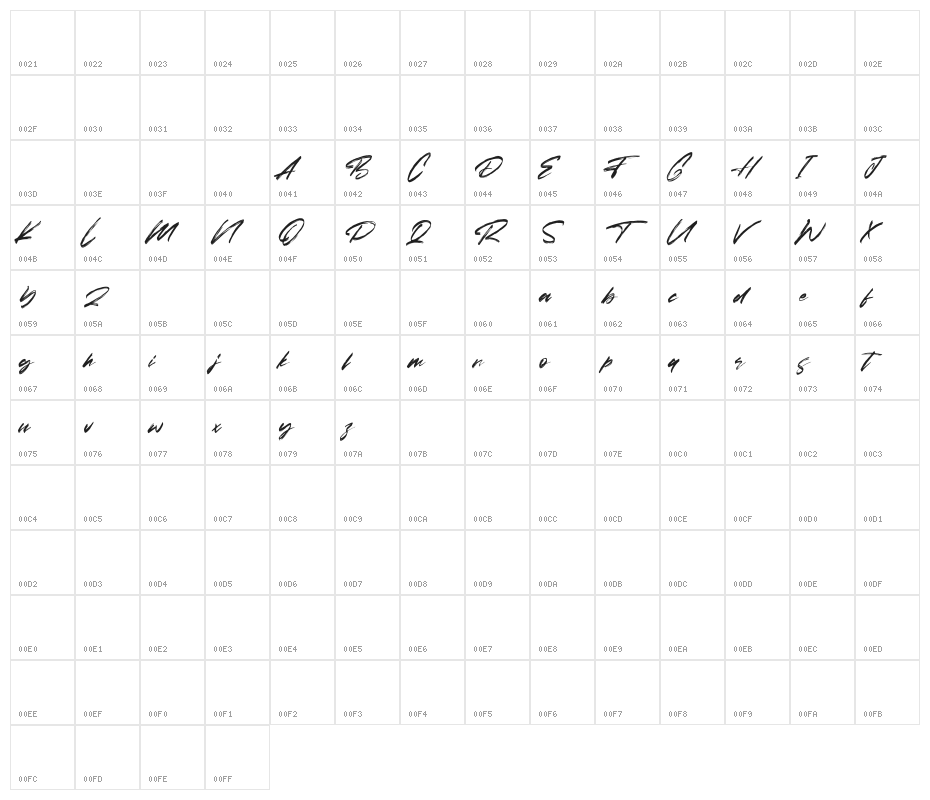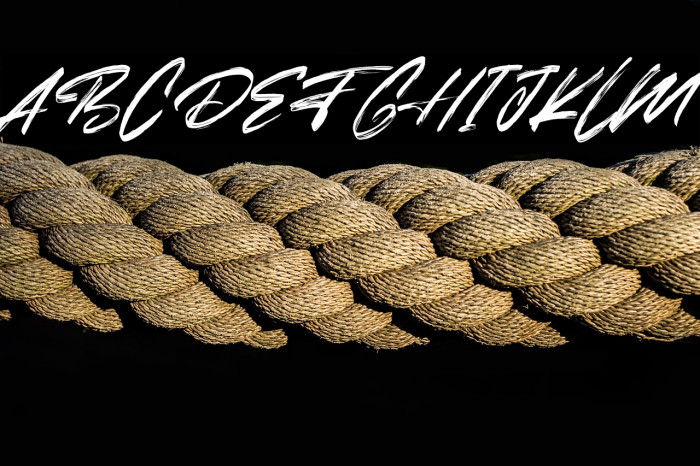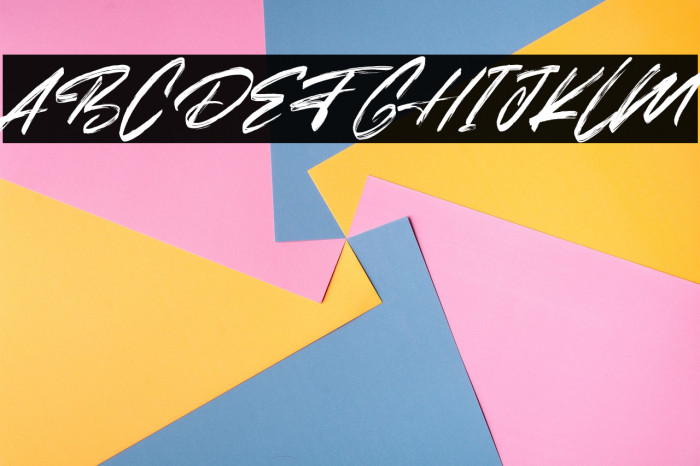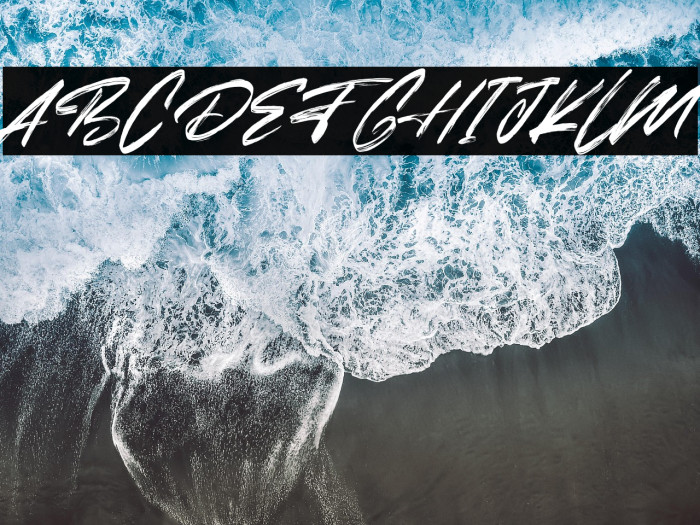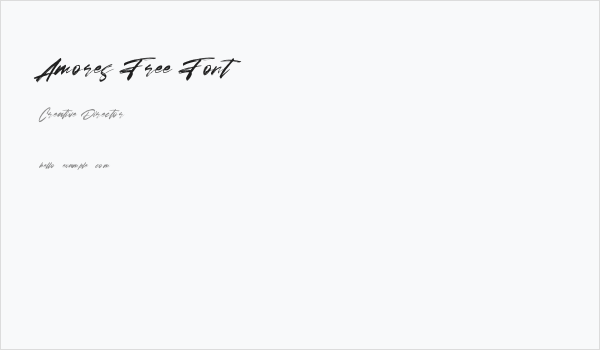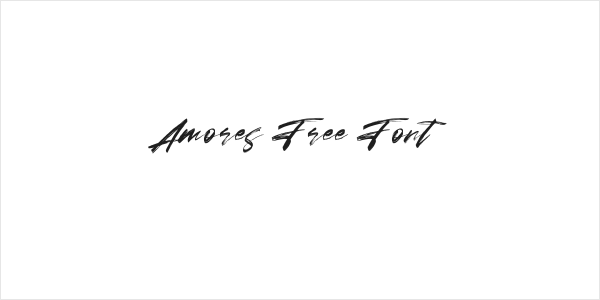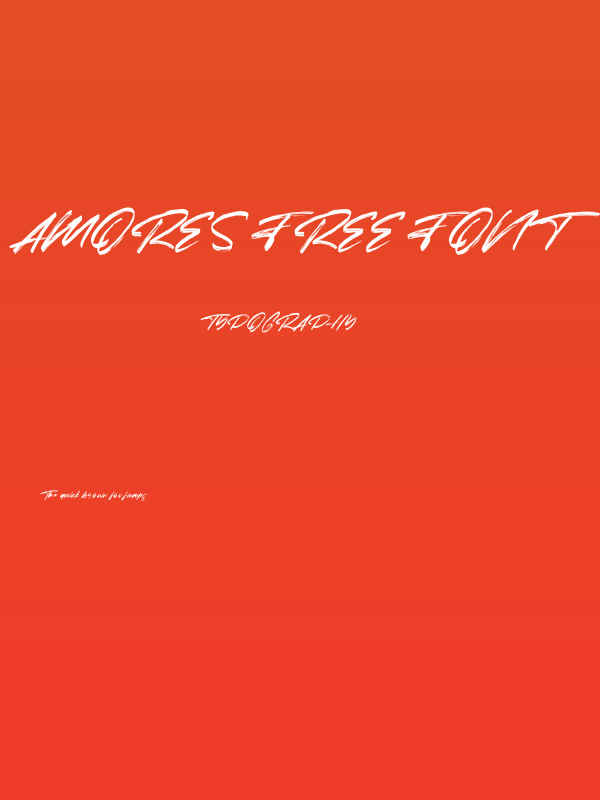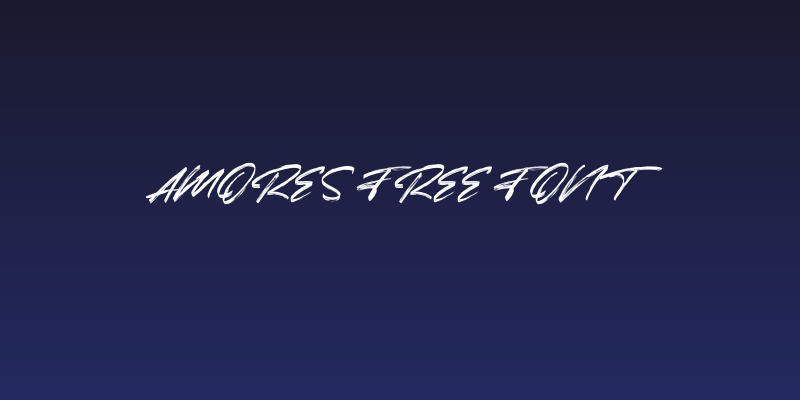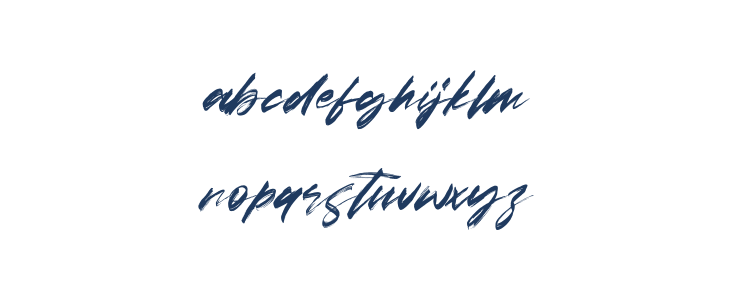
Amores Free Font Font
Amores Free Font Description
This font features a dynamic and expressive script style, characterized by its bold, sweeping strokes and fluid motion. The letters are interconnected, giving a sense of continuity and flow, reminiscent of elegant handwriting. The uppercase letters are particularly striking, with exaggerated flourishes and a sense of movement that suggests speed and energy. The lowercase letters maintain this fluidity, with a slightly more restrained style that ensures readability. The overall appearance is both artistic and modern, making it suitable for creative and impactful designs.
| Proposed Projects | Ideal for branding, invitations, posters, and any project requiring a touch of elegance and flair. |